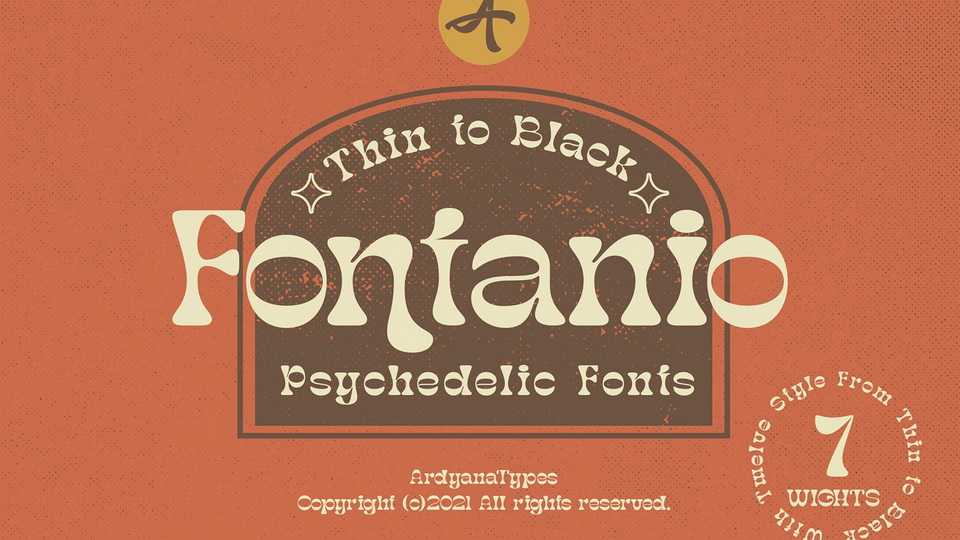
Download Fontanio font, a reverse contrast display typeface that comes in a retro psychedelic style. Many designers use this type of font for projects with the theme of happiness and fun.
Designer: Ardyana Types